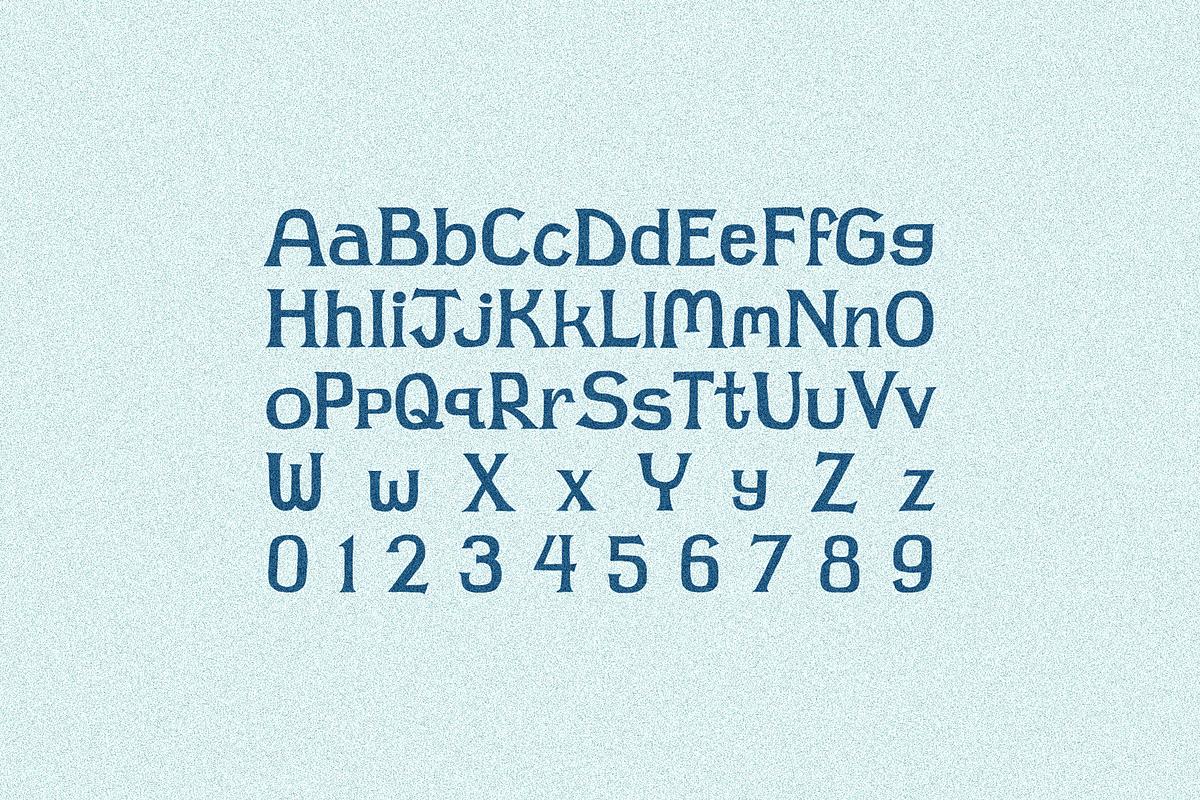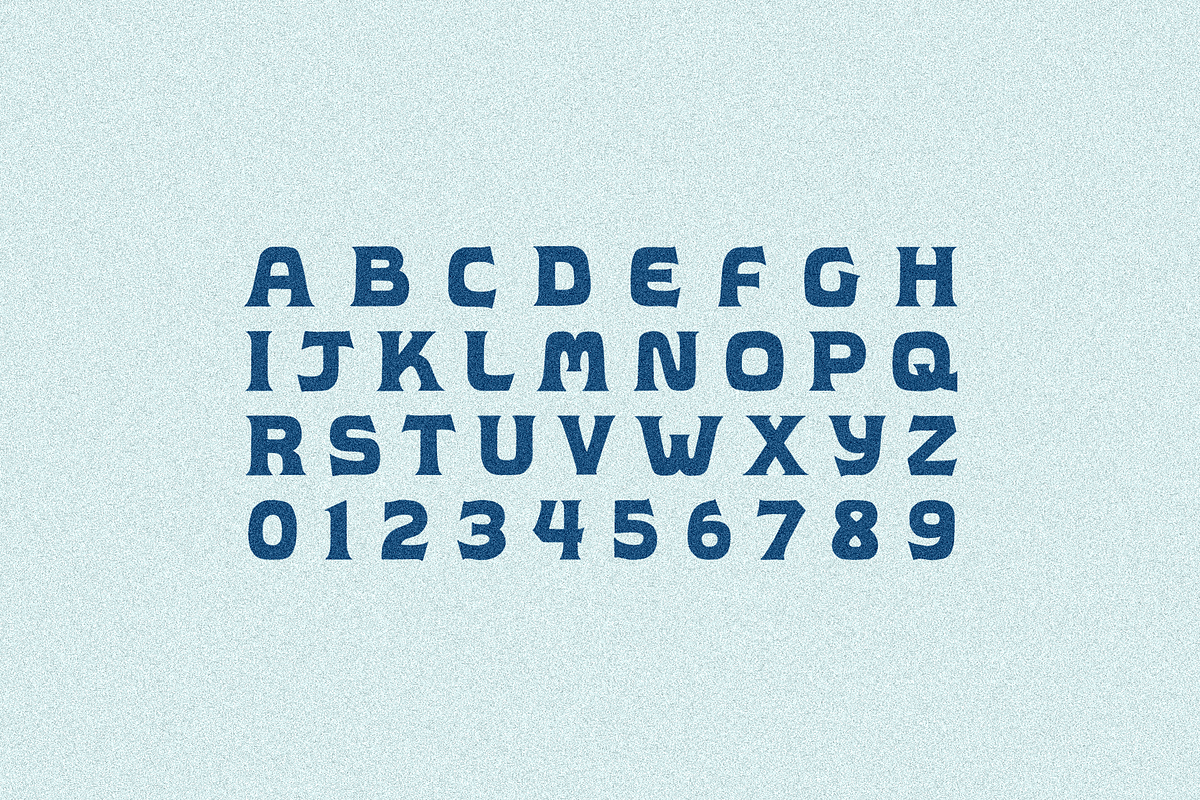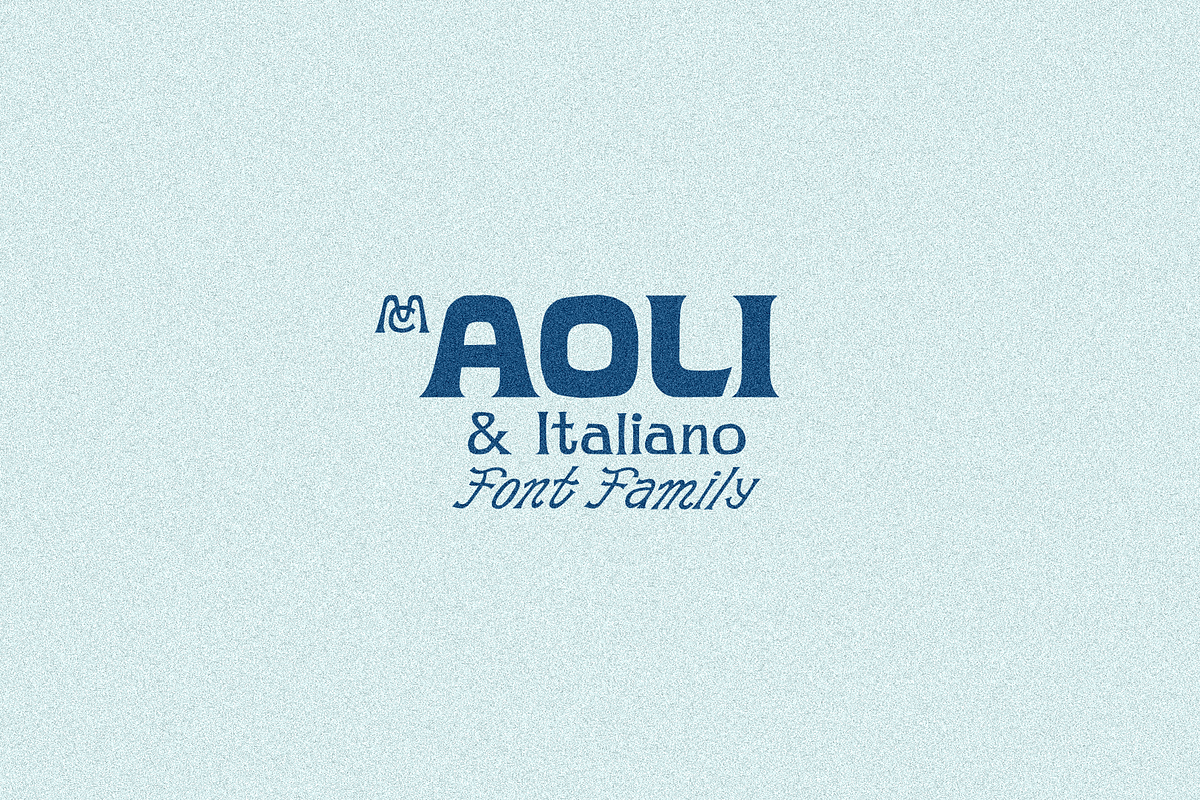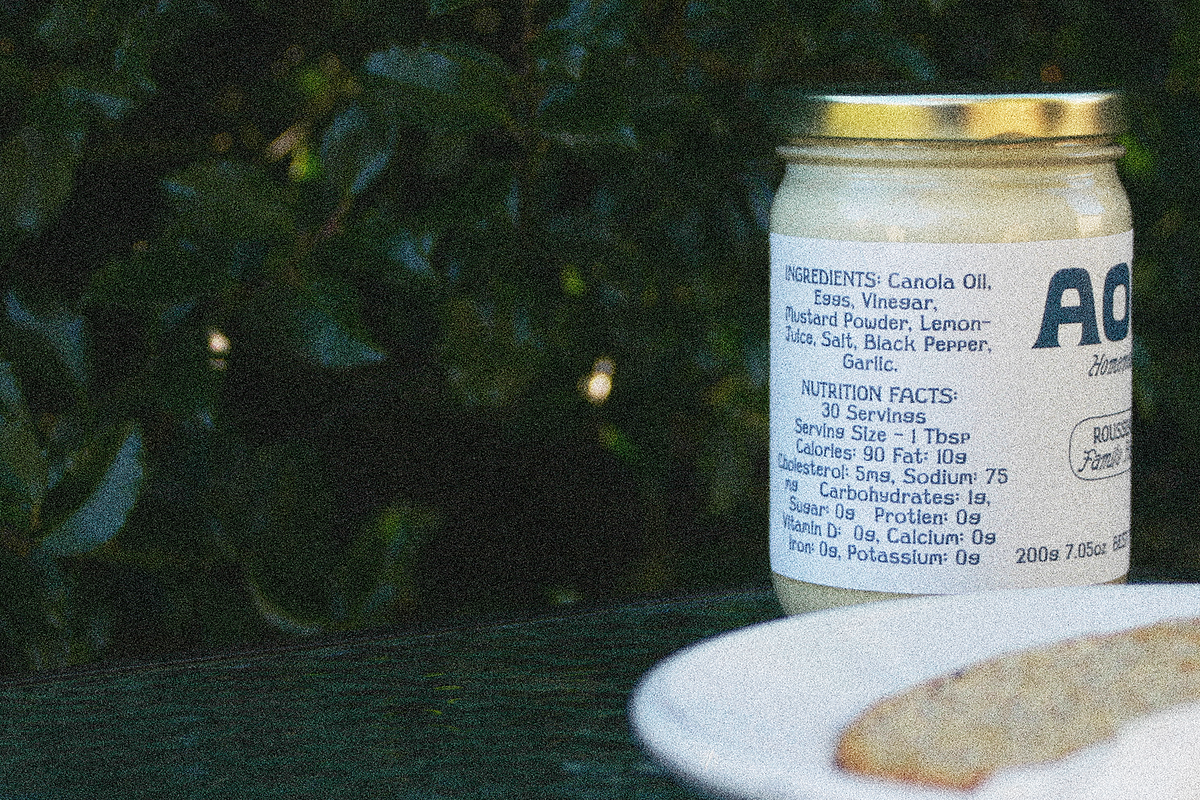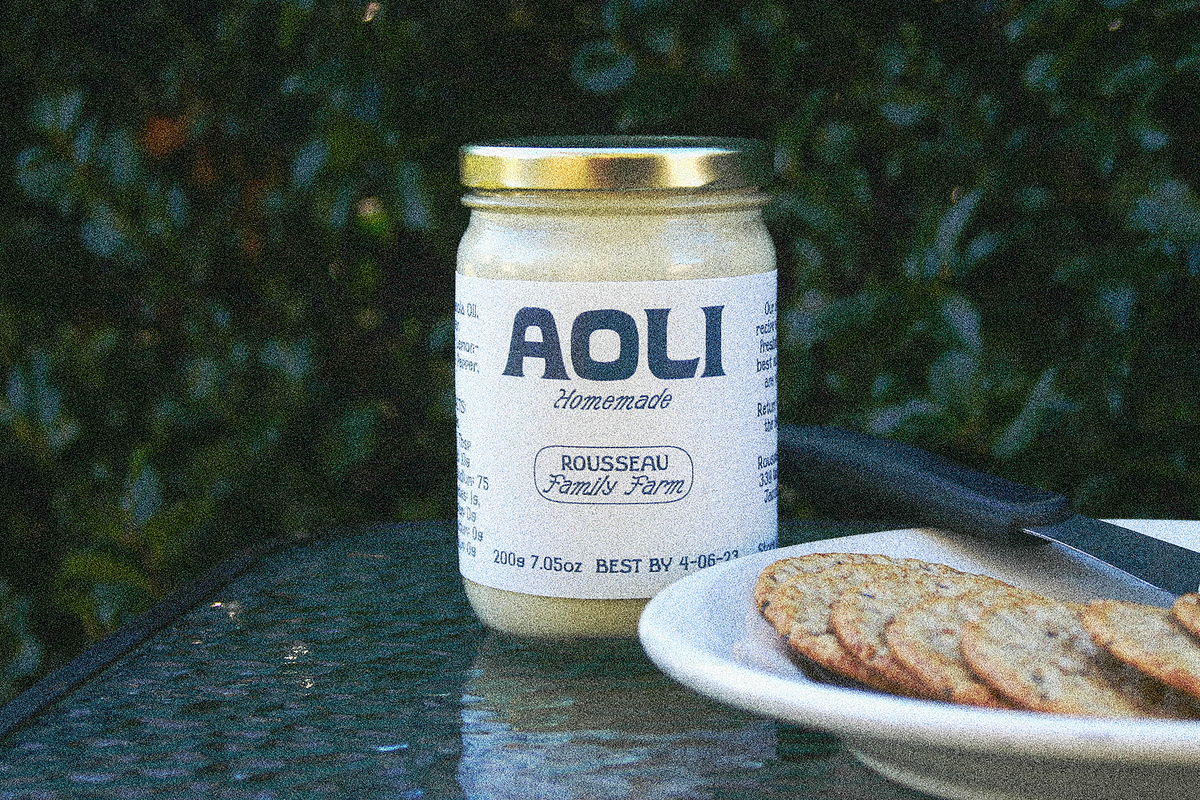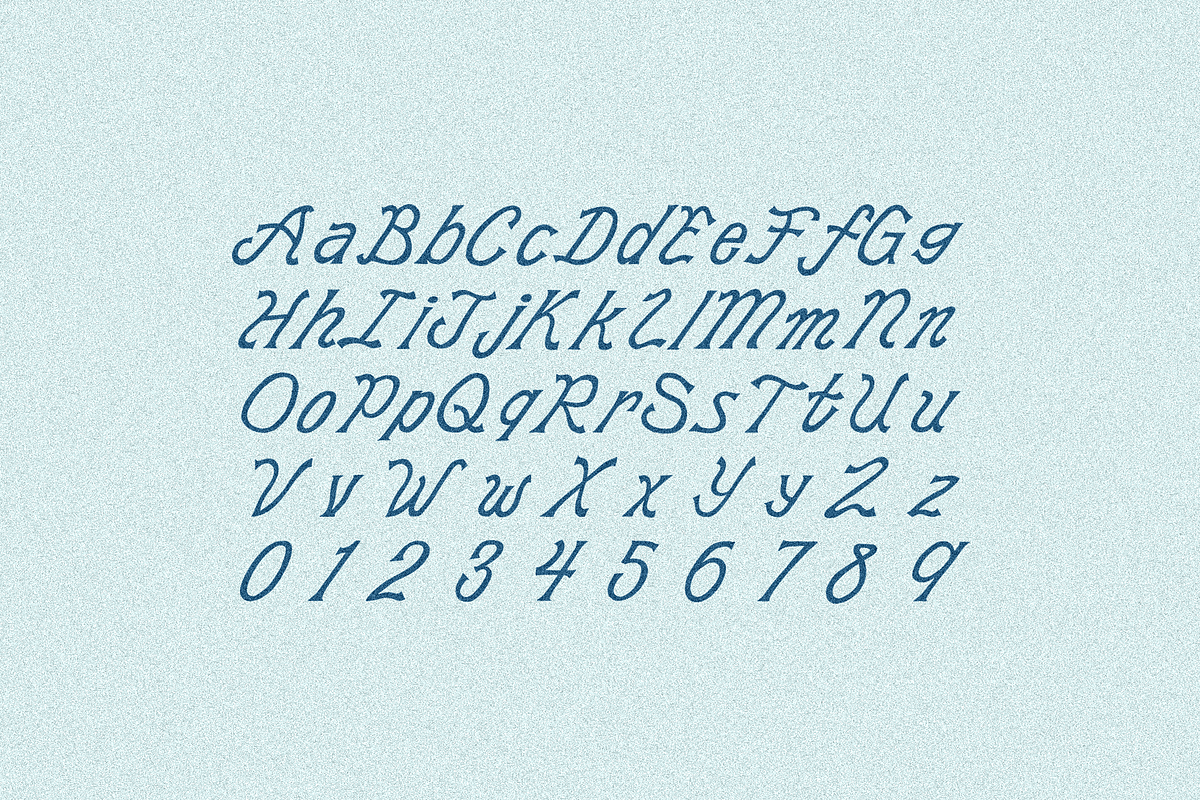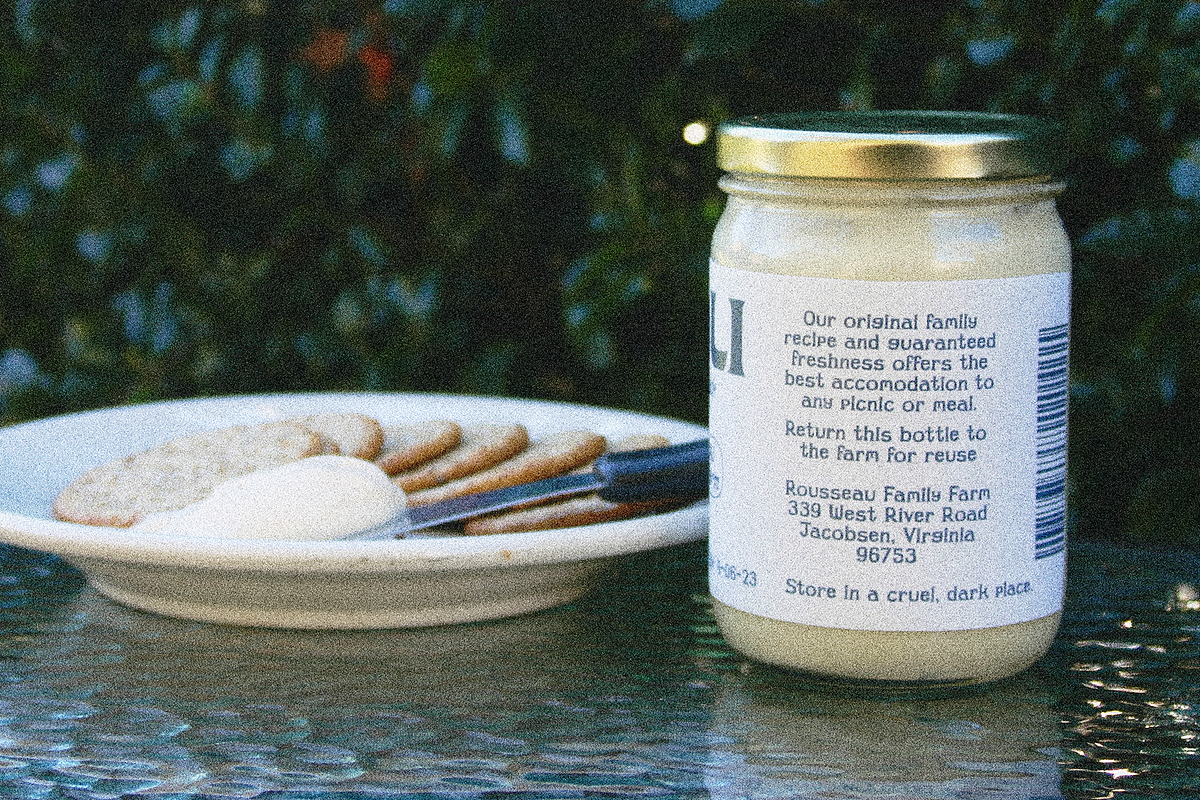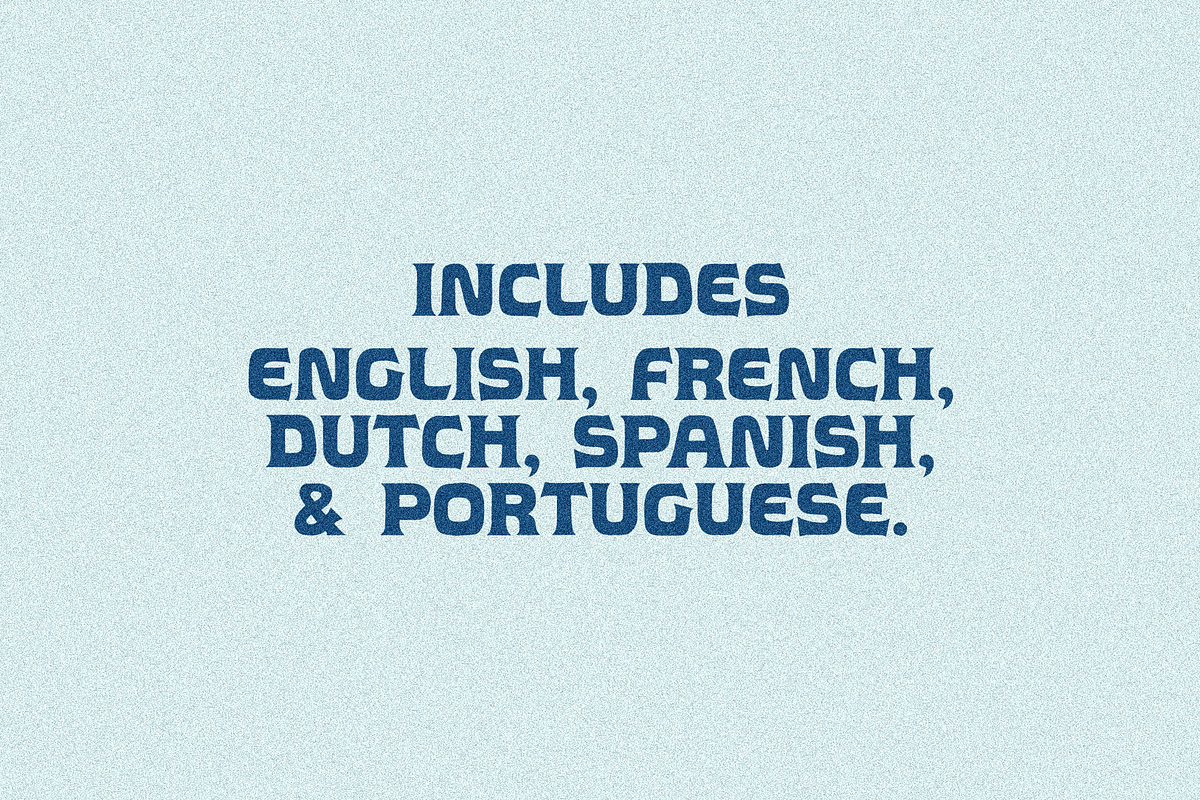
MC Aoli and Italiano
These hand-made display fonts are great for any food-label-poster-kind-of-situation. Or perhaps just for microsoft word if you're into that. It includes otf, ttf, woff, and woff2 font files.